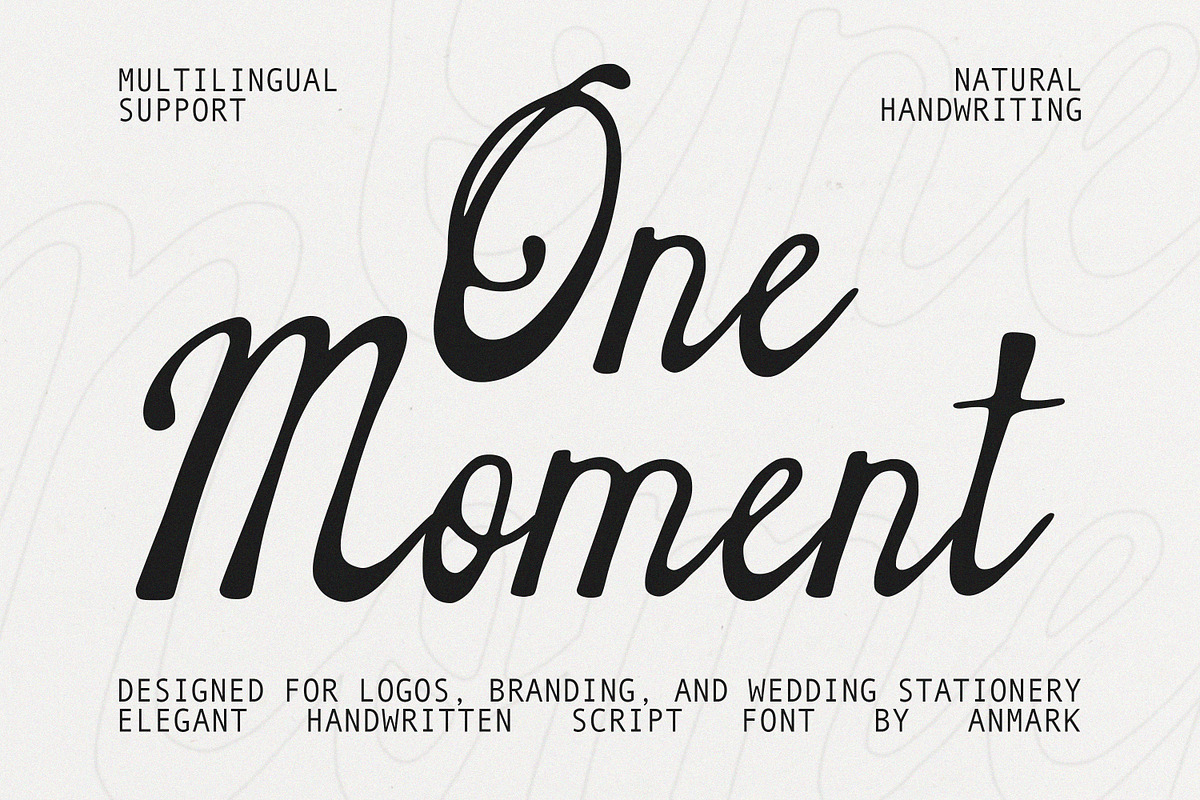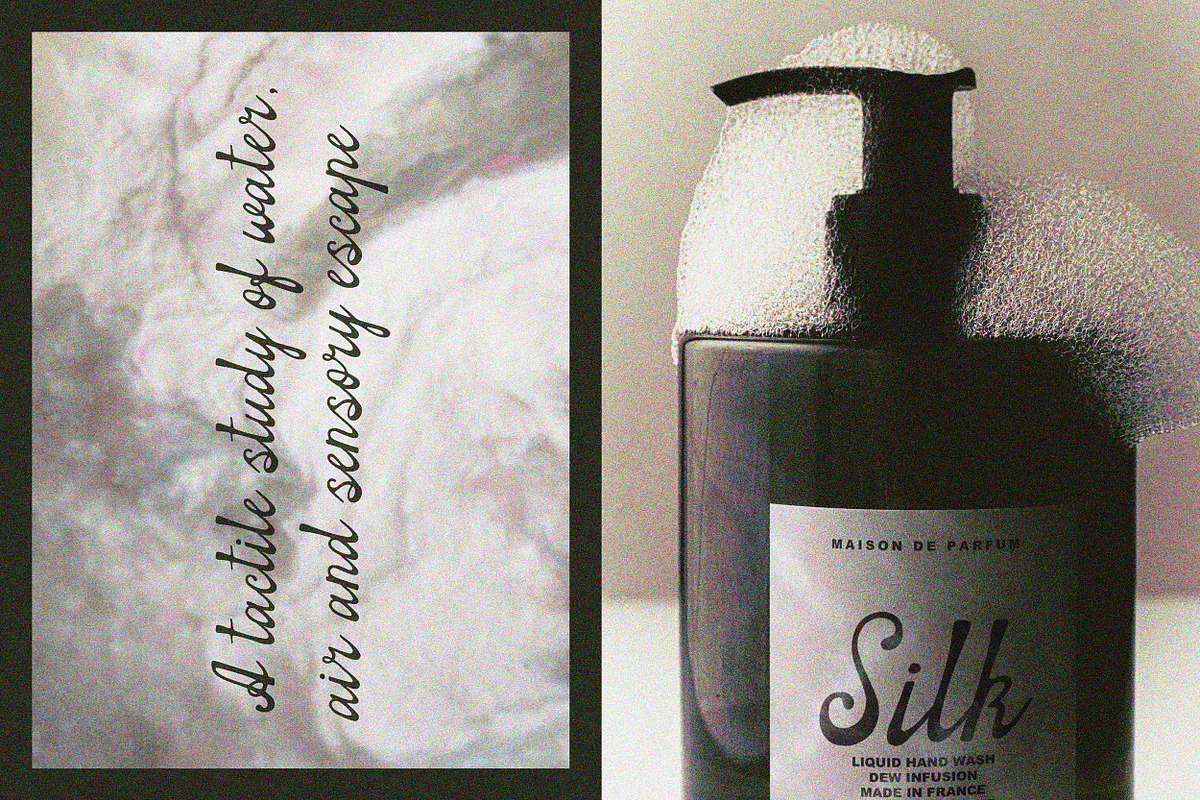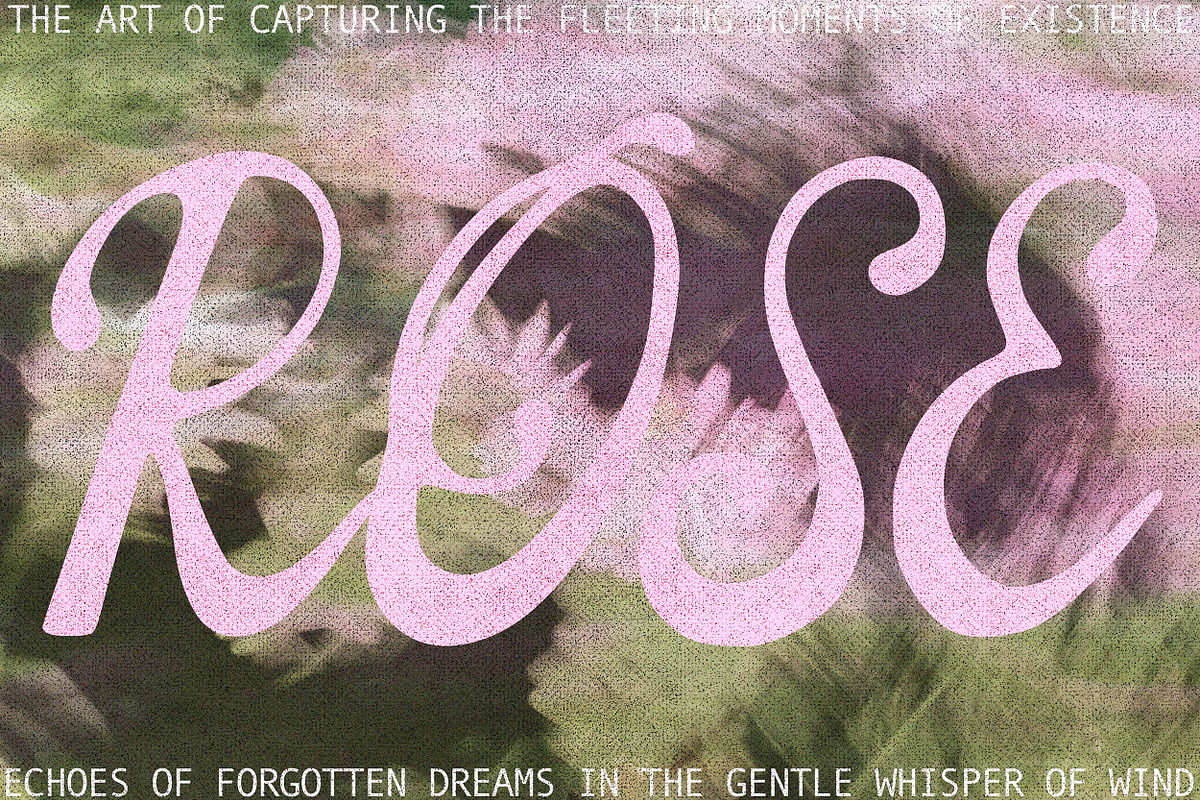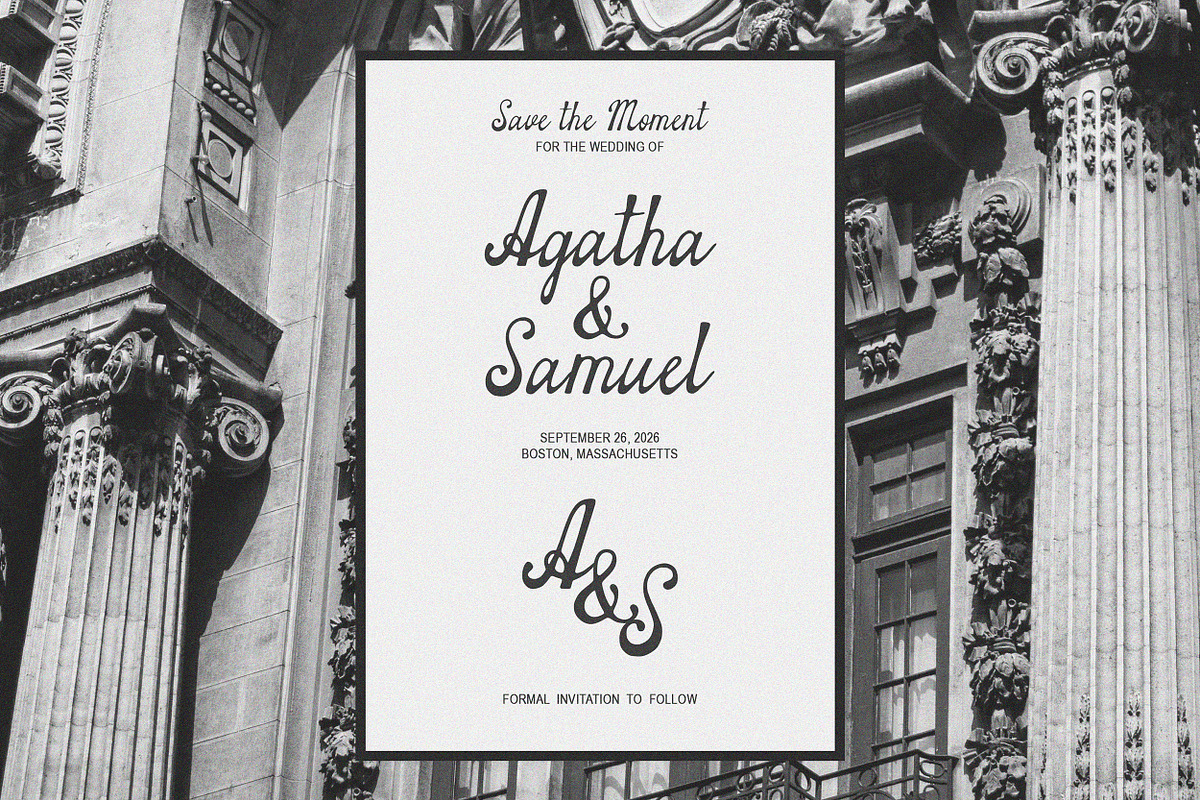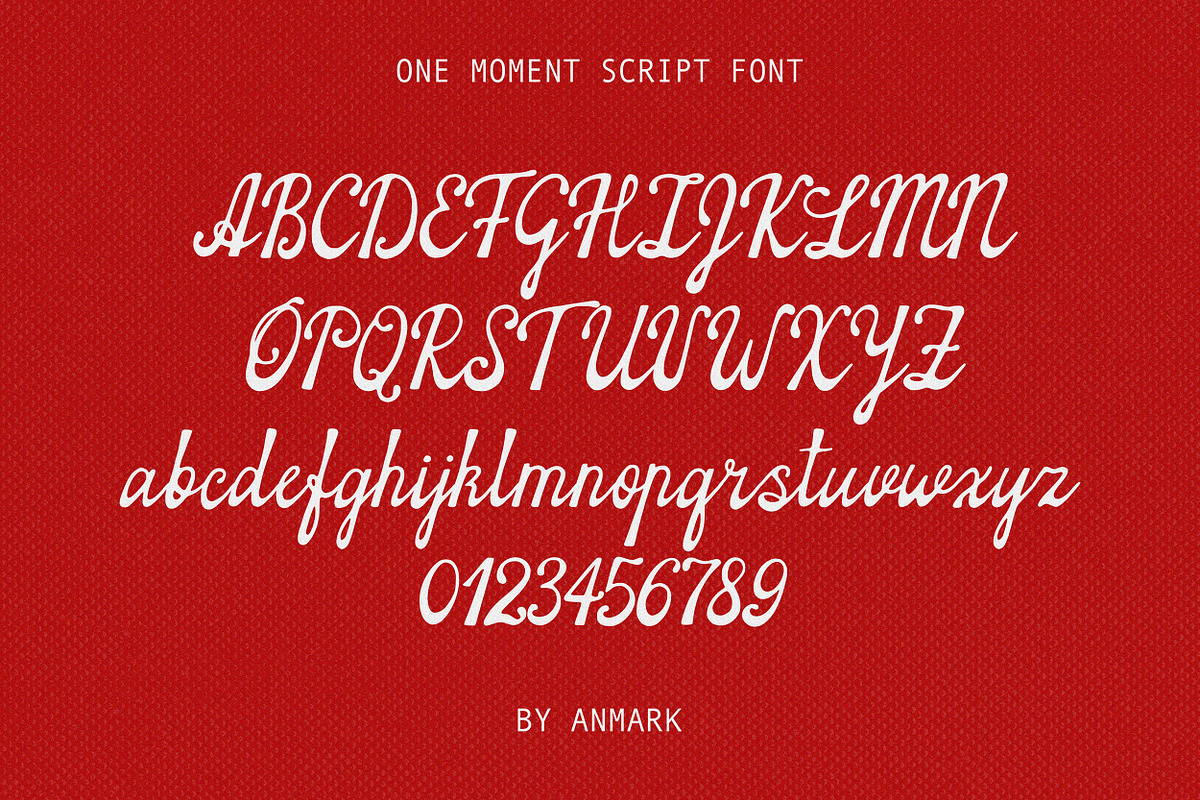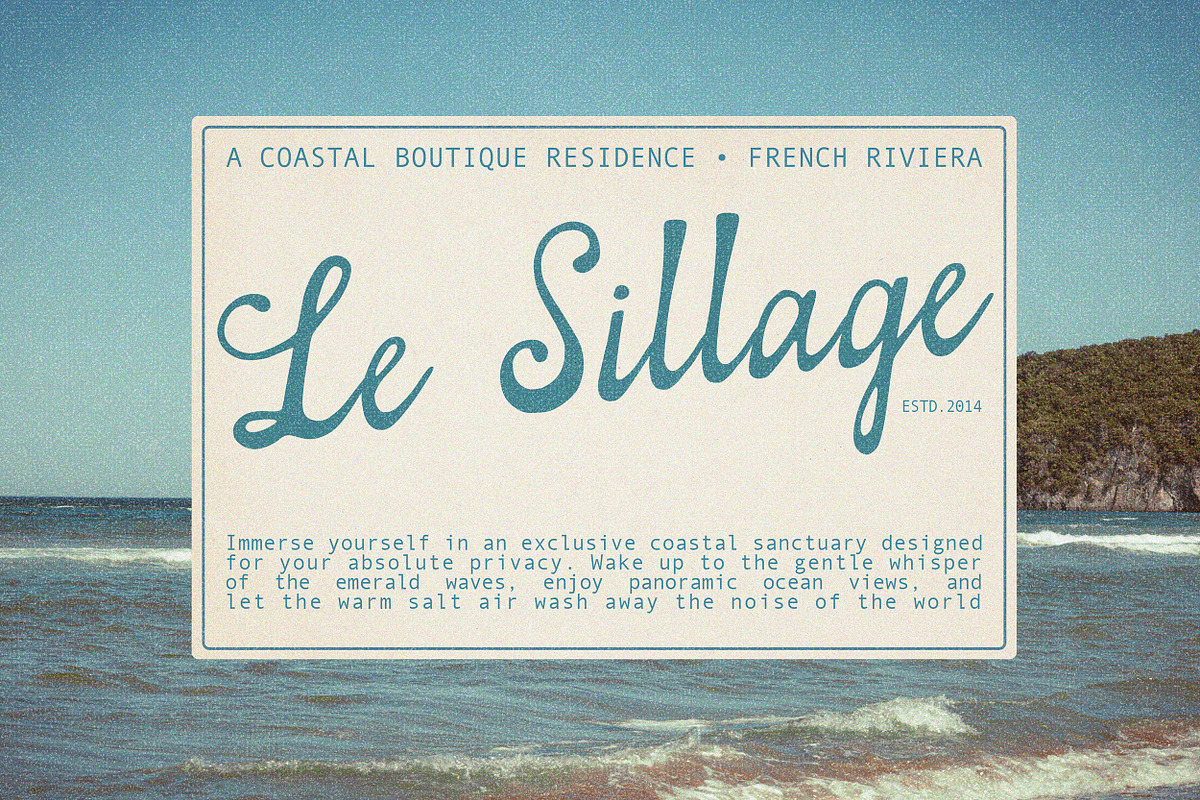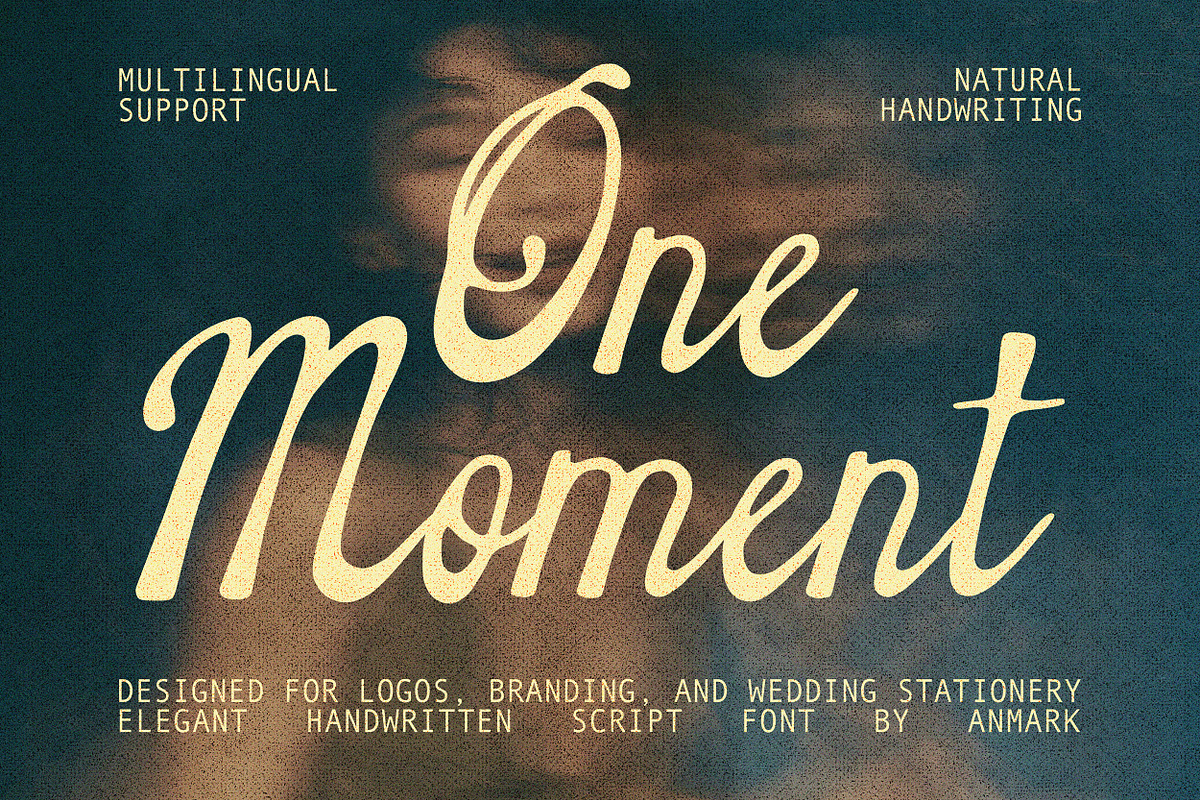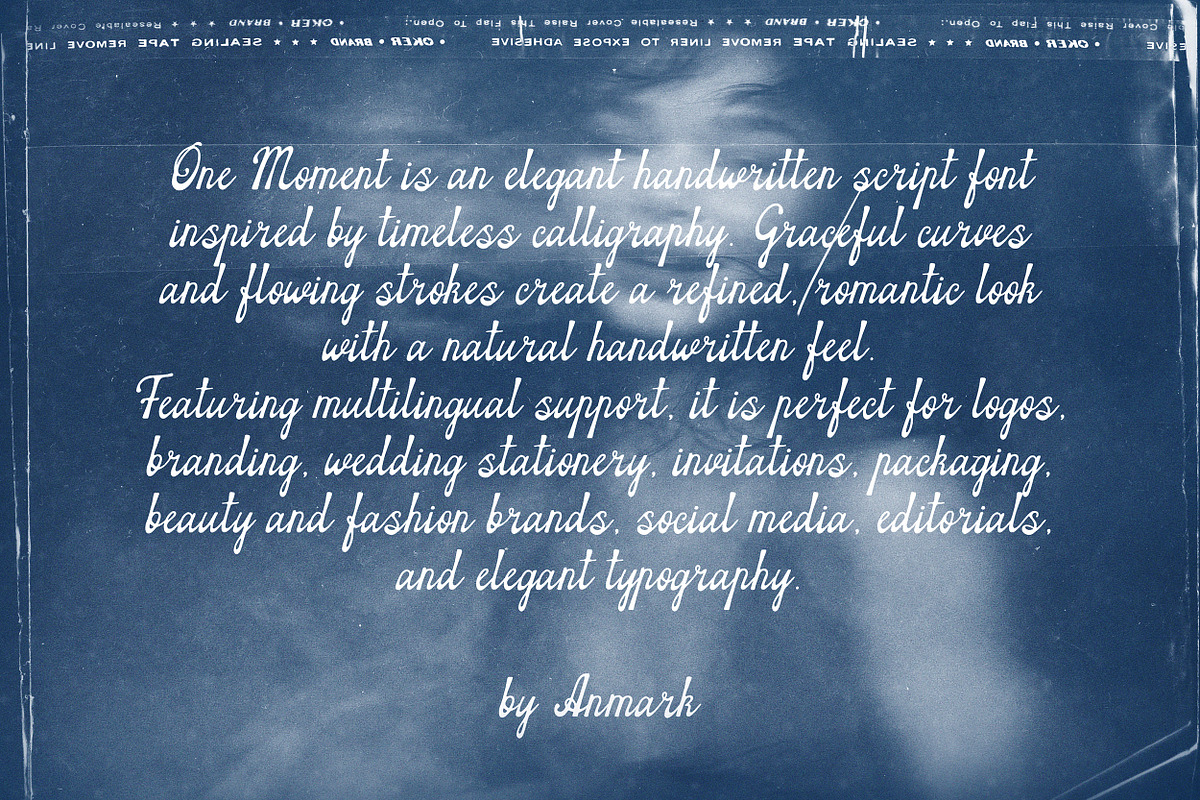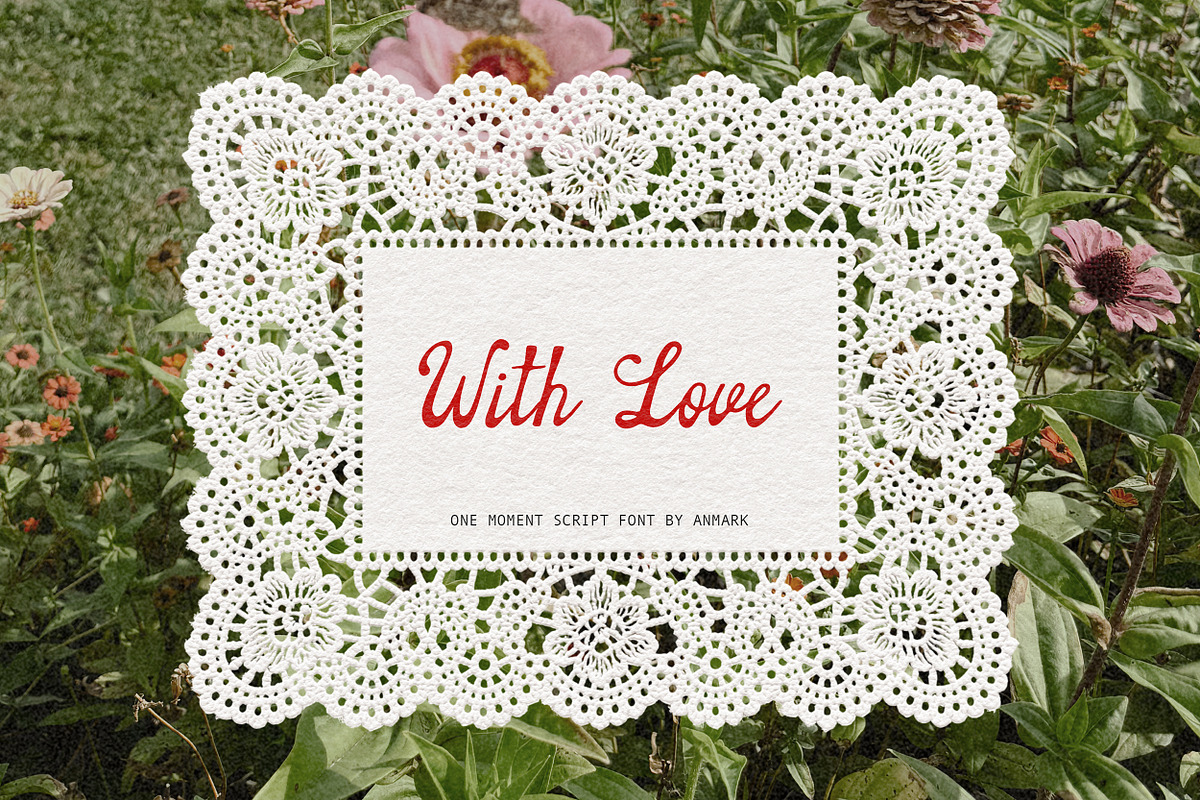
One Moment | Elegant Script Font
One Moment is an elegant handwritten script font inspired by timeless calligraphy and classic penmanship. Graceful curves, flowing strokes, and refined letterforms create a romantic, feminine style with a soft vintage character. Designed to feel natural and expressive, it brings sophistication to every word while maintaining excellent readability. With multilingual support, One Moment is a versatile choice for both personal and commercial projects around the world.
This elegant script font is perfect for logos, branding, wedding invitations, stationery, greeting cards, packaging, beauty and fashion brands, perfume labels, boutique identities, magazines, editorials, book covers, social media, marketing materials, quotes, and elegant typography. Whether you're designing a luxury brand, a romantic wedding suite, or stylish product packaging, One Moment adds a graceful handwritten touch that feels timeless and memorable.
Logos and branding
Wedding invitations and stationery
Fashion and beauty branding
Boutique and cosmetic packaging
Perfume and skincare labels
Editorial and magazine design
Book covers
Greeting cards
Marketing materials
Quotes and typography
Elegant print and digital projects